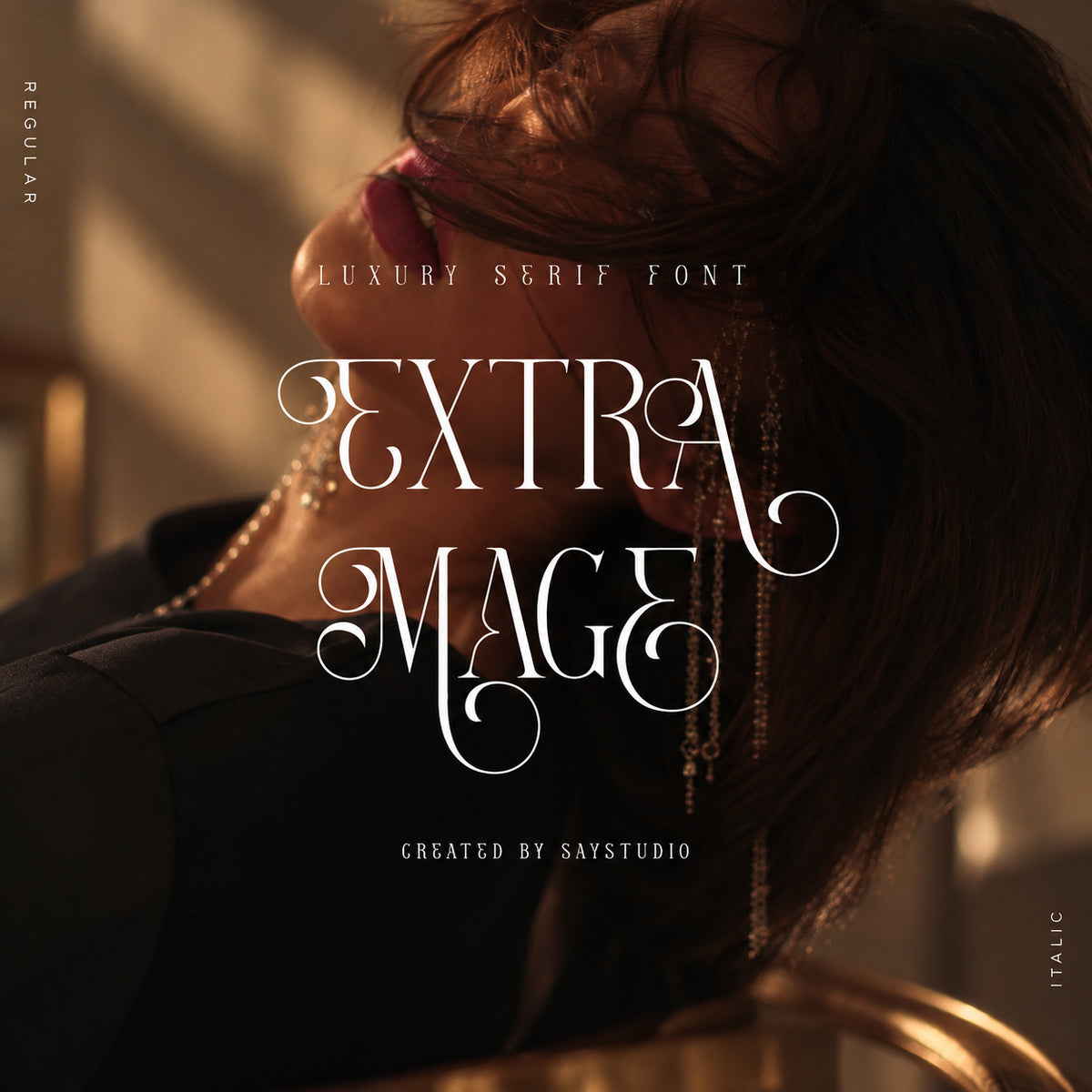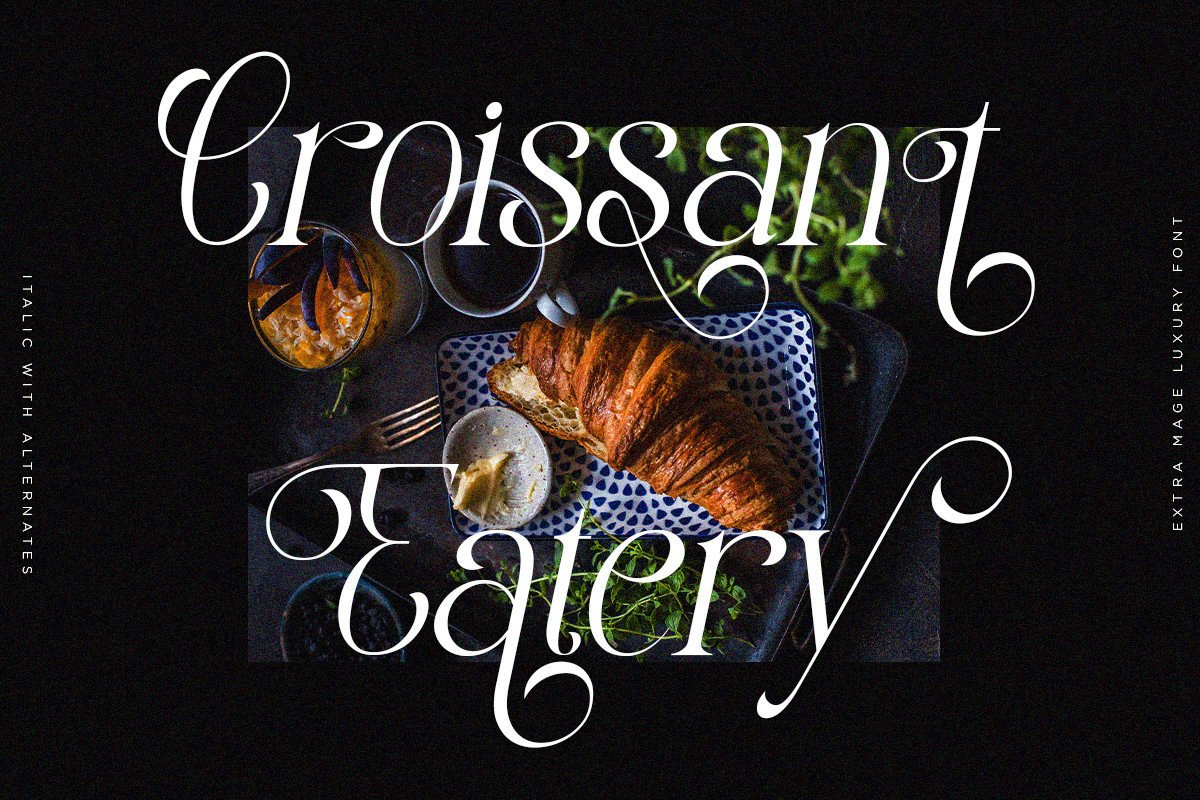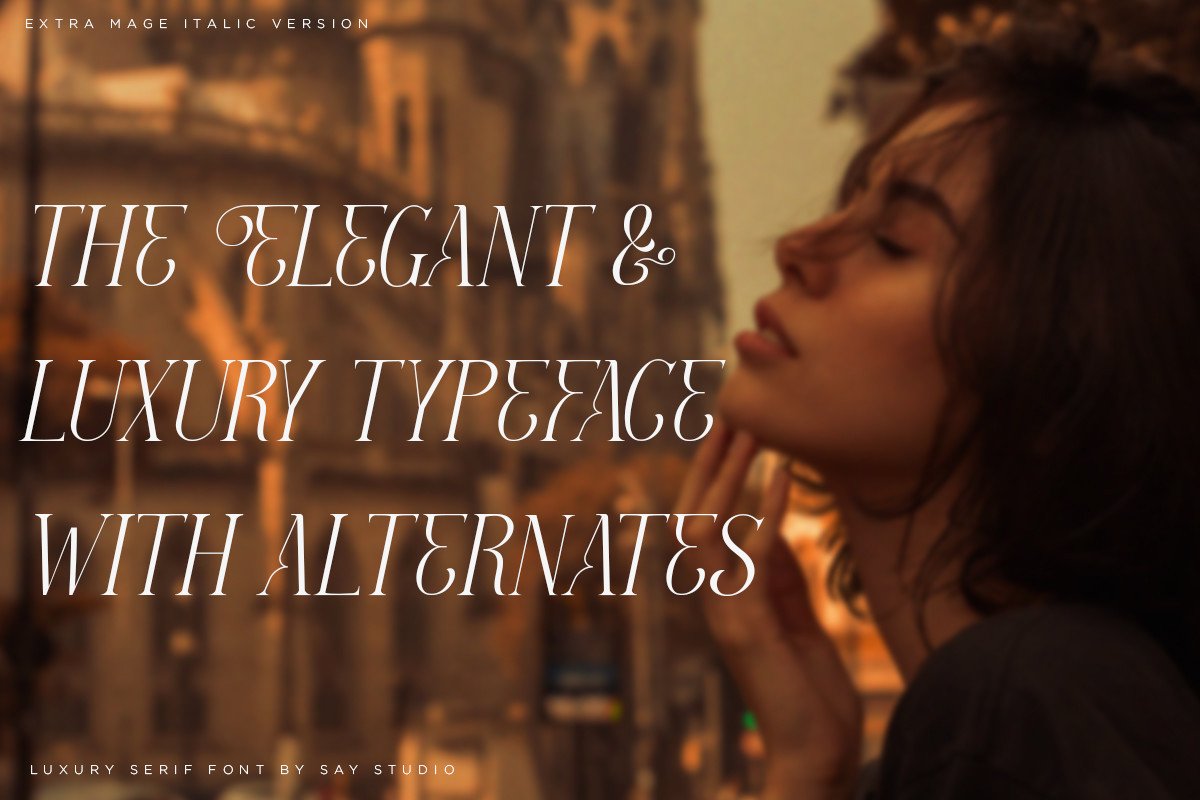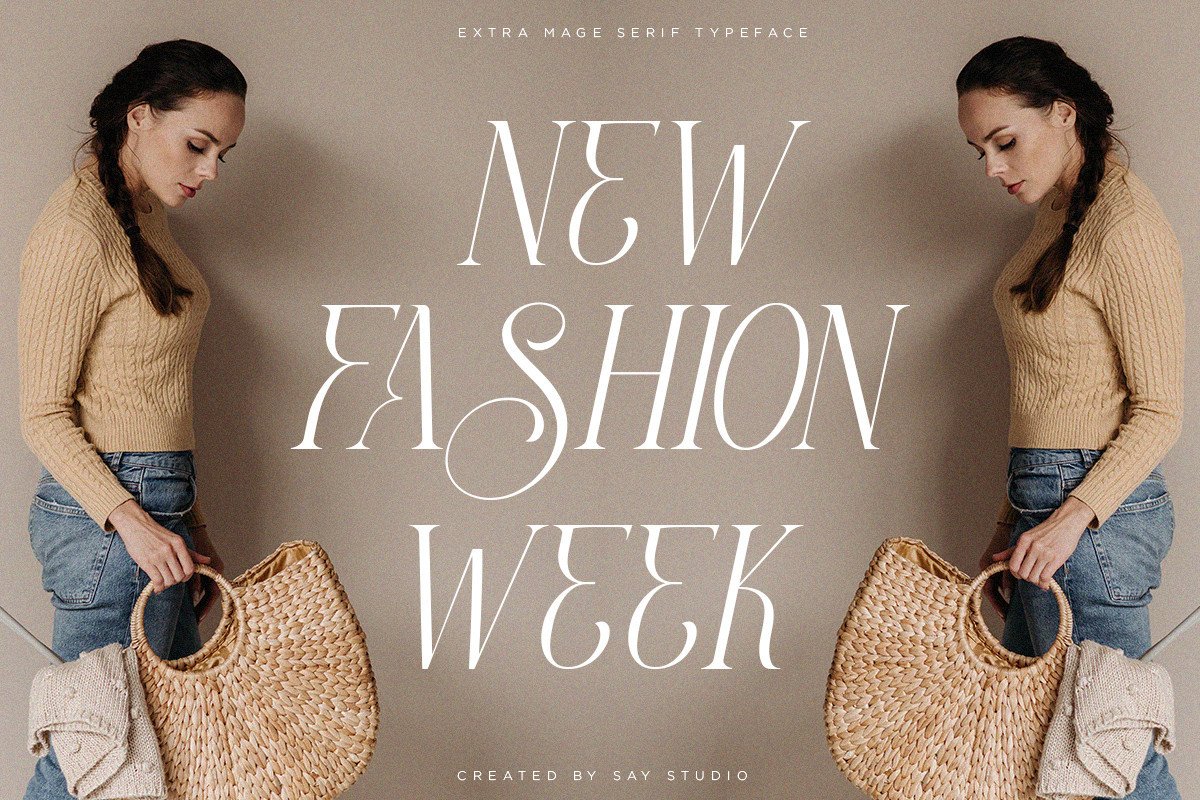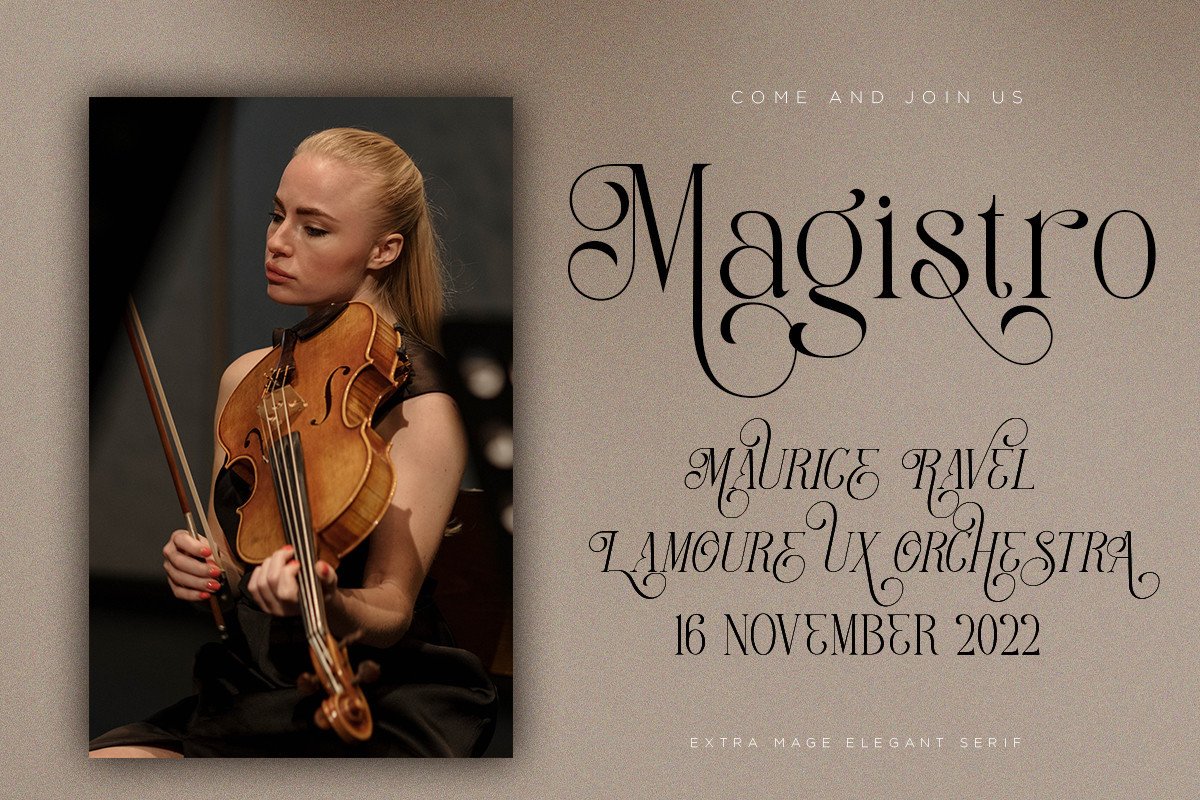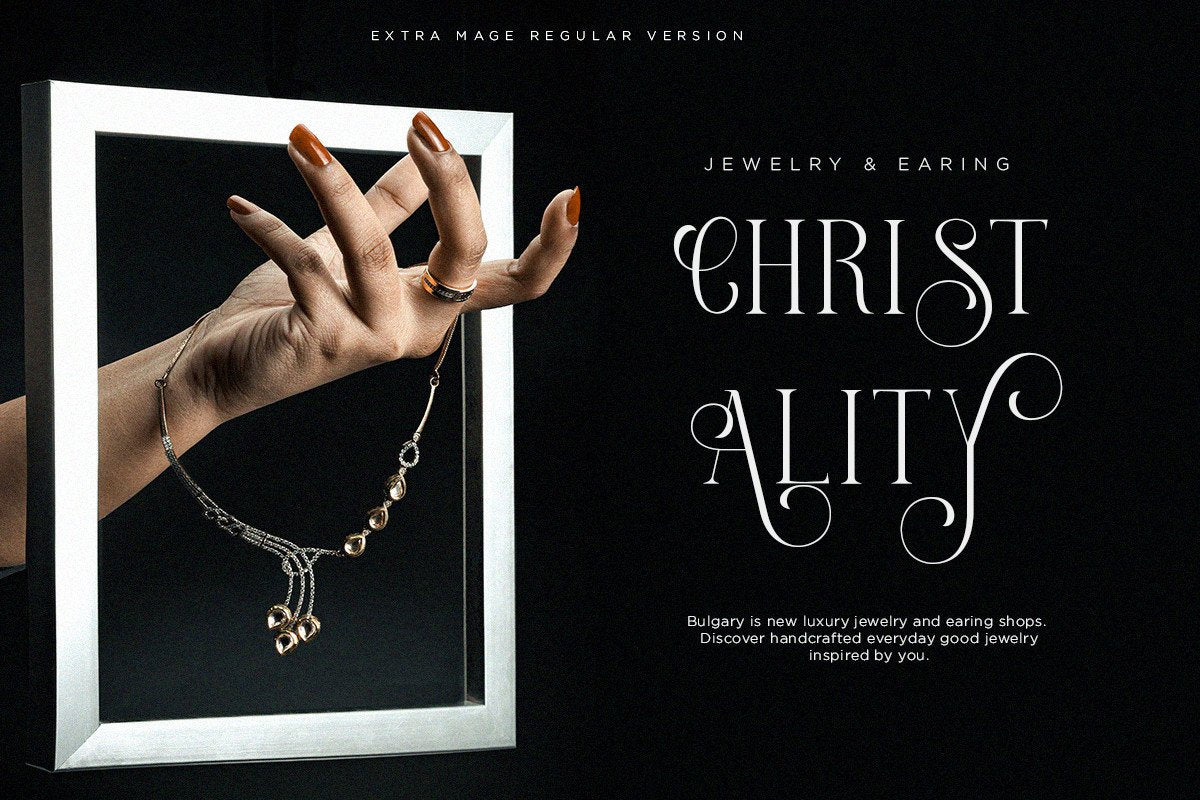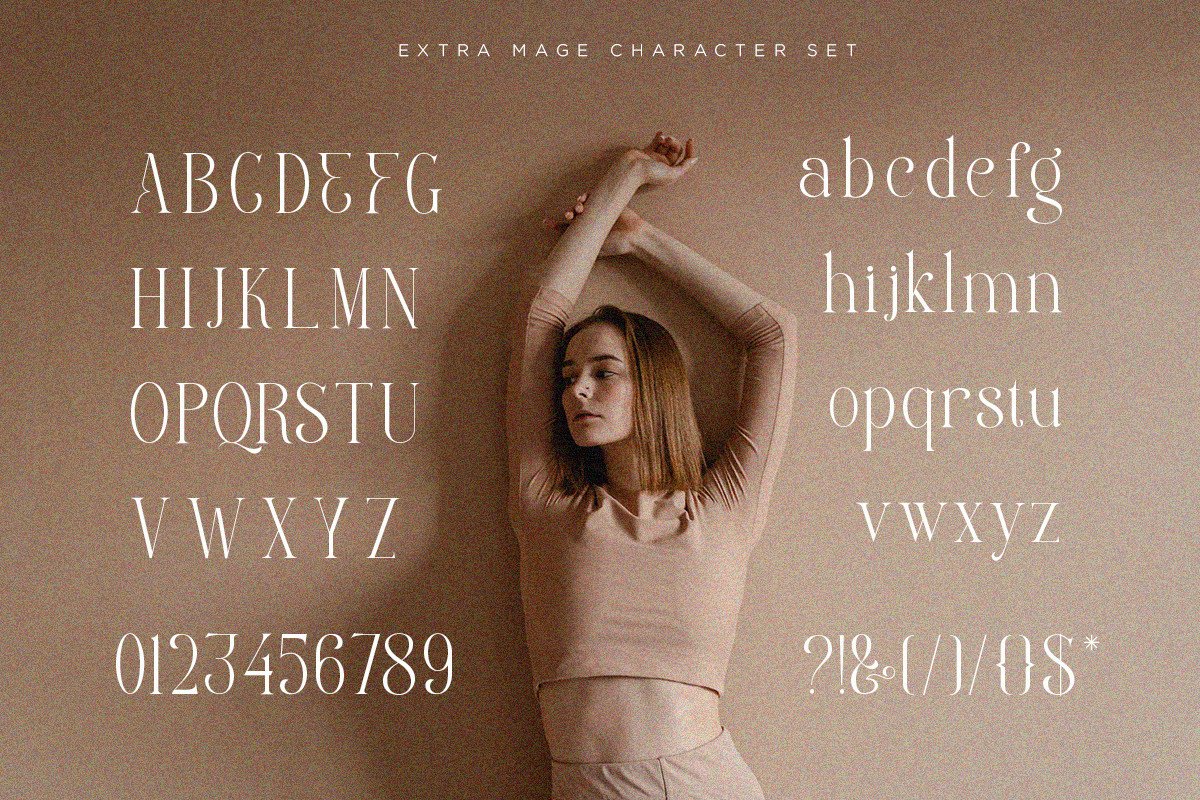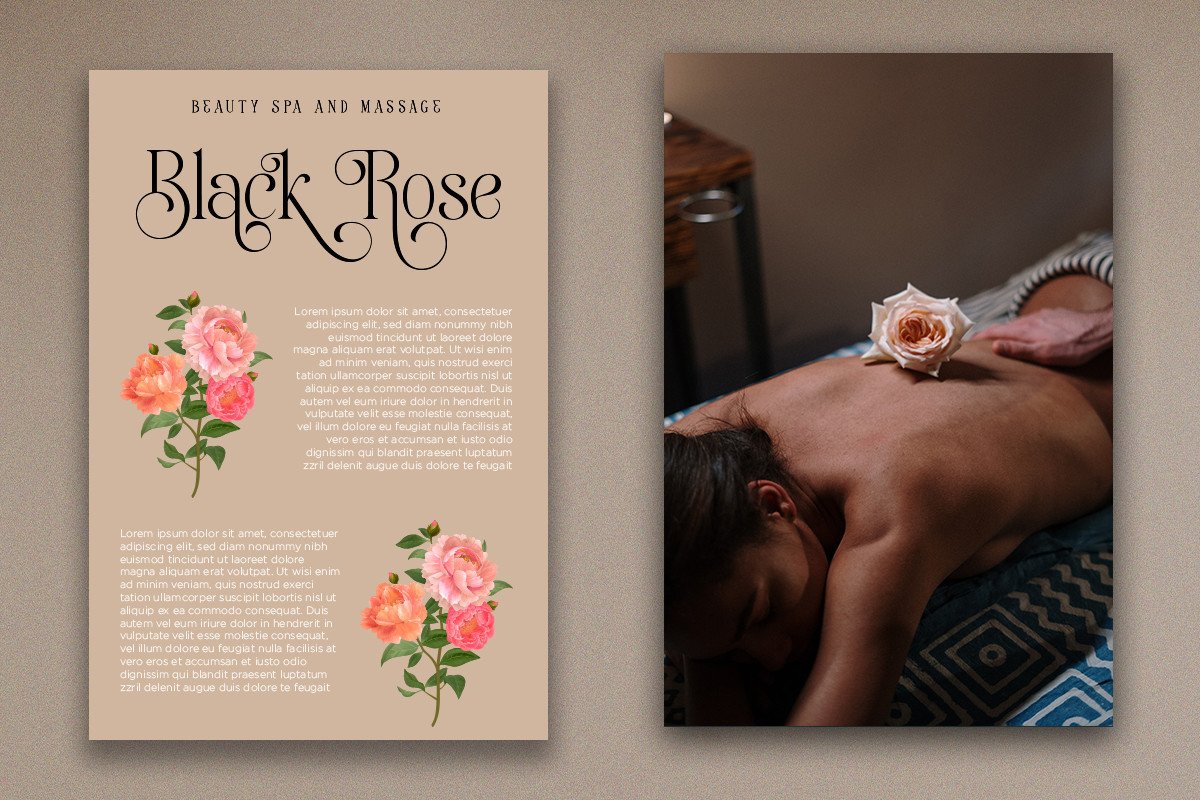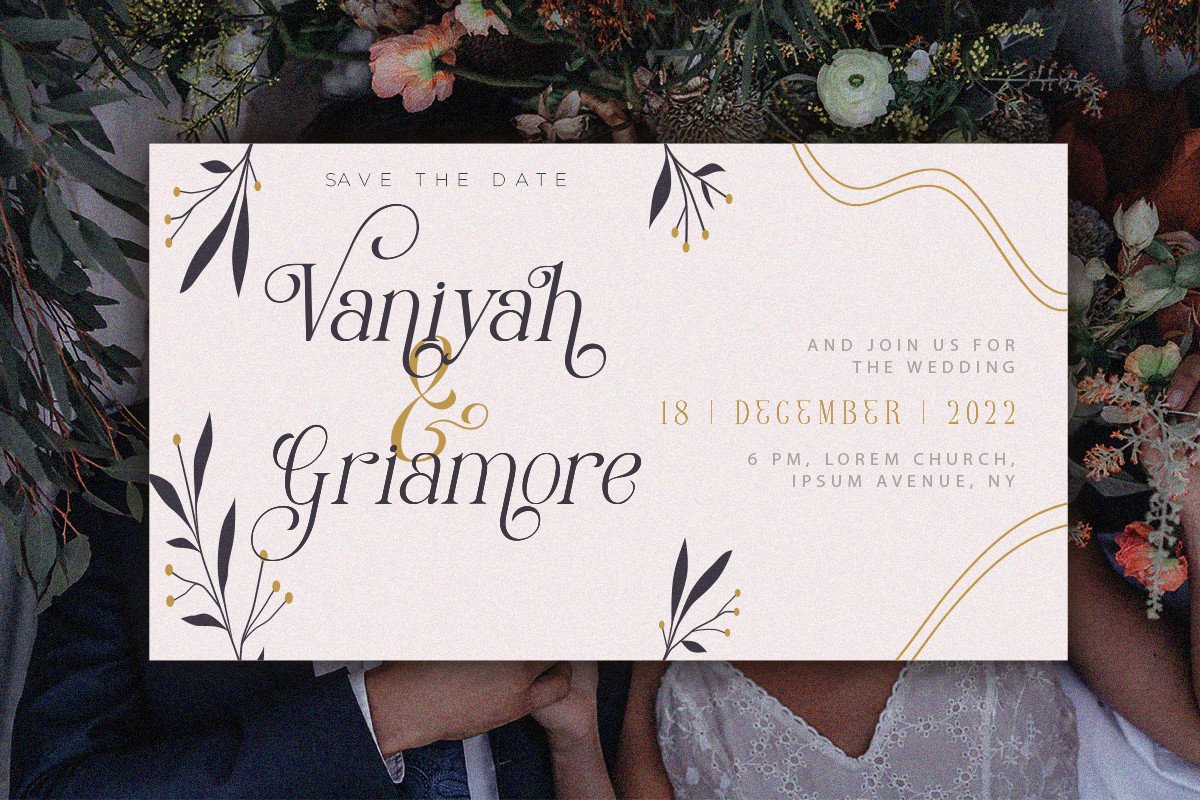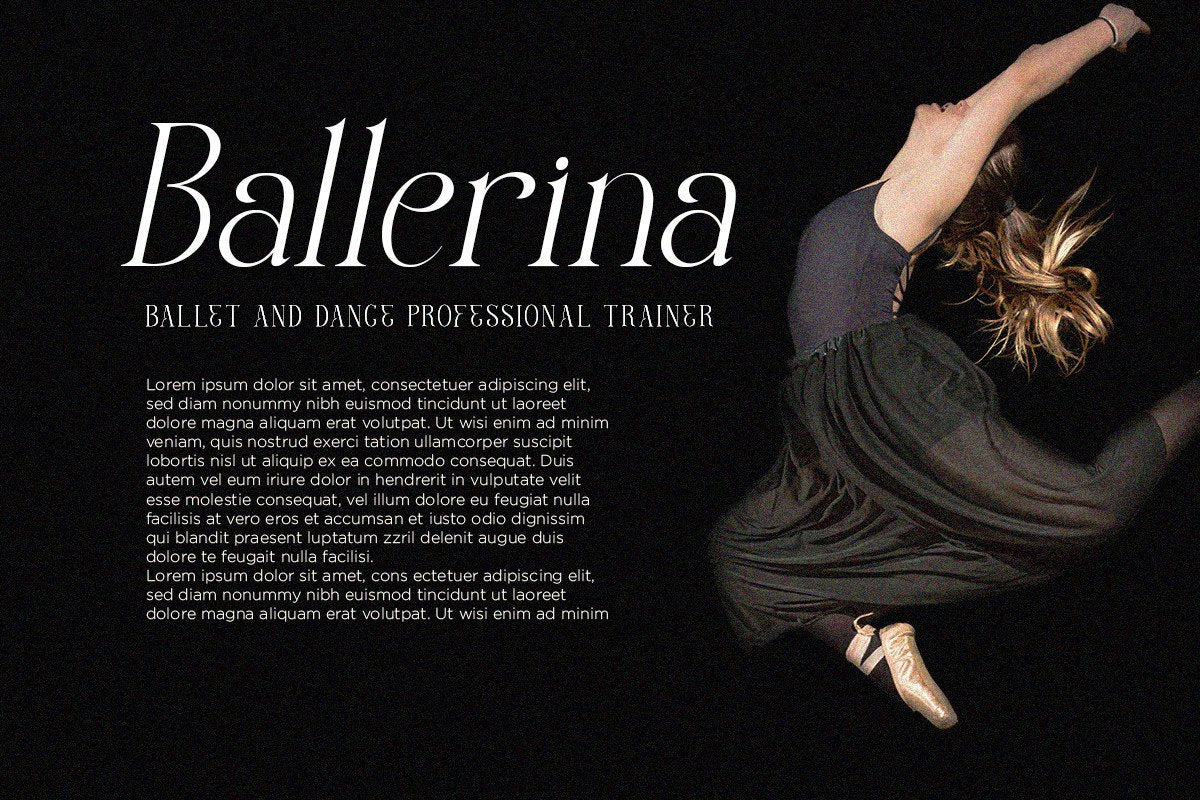
Extra Mage - Luxury Decorative Serif Font
Extra Mage is an elegant luxury typeface designed to bring a refined and artistic character to sophisticated visual identities. With its graceful curves, dramatic letterforms, delicate contrast, and expressive flourishes, Extra Mage creates a distinctive look that feels timeless, fashionable, and effortlessly luxurious. Its ornamental details and stylish proportions make every word feel like a carefully crafted piece of typography.
Designed for projects that demand elegance and personality, Extra Mage works beautifully across fashion branding, luxury logos, beauty products, wedding invitations, editorial layouts, jewelry packaging, fragrance labels, photography, boutique branding, and sophisticated social media designs. The included uppercase and lowercase characters, multilingual support, ligatures, stylistic alternates, and decorative glyphs give you plenty of flexibility to create unique typographic compositions.
Special Alternates
Extra Mage is a decorative serif typeface with Regular and Italic styles, uppercase and lowercase characters, special alternates, ligatures, numbers, symbols, punctuation, and multilingual support. It is available in OTF, TTF, and WOFF formats.